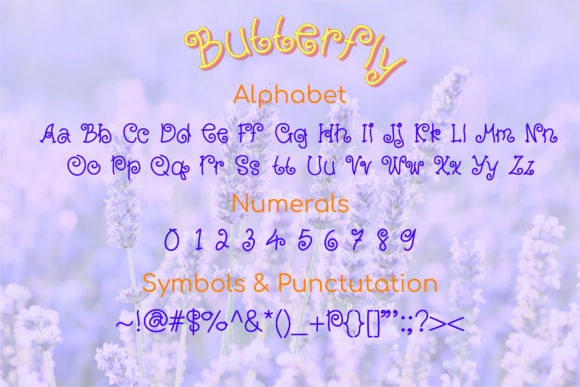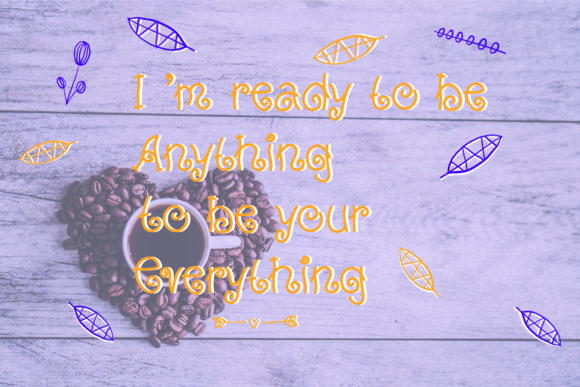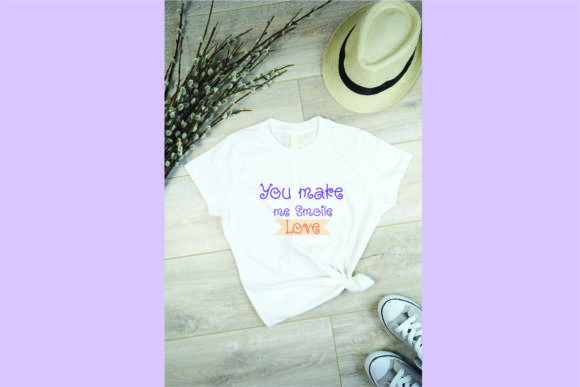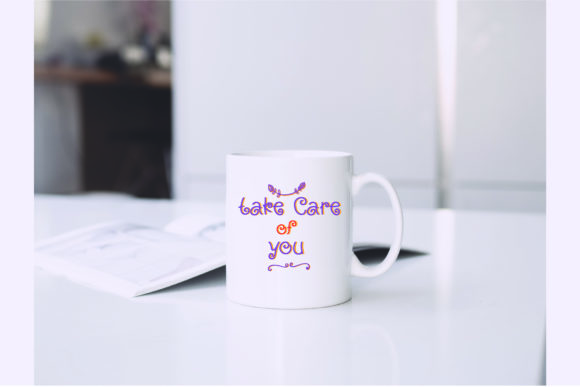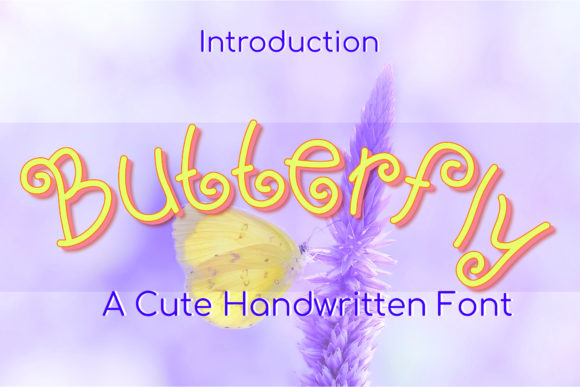
The Magical World of Butterfly Font
With its cute and whimsical script style, Butterfly font instantly elevated my design to a whole new level. If you’re a designer, crafter, or creative hobbyist looking for a font that will make your creations look out of this world, you’re in the right place. In this article, we’ll dive into the world of Butterfly font, exploring its features, uses, and alternatives.
An Honest Review of Butterfly Font
- ✨ Cute and Whimsical Design: Butterfly font is expertly designed to add a touch of magic to your creations.
- ✅ Highly Versatile: This font looks gorgeous on a variety of design ideas, from party invitations to branding materials.
- 💫 Easy to Read: Despite its whimsical nature, Butterfly font is surprisingly easy to read, making it perfect for both headings and body text.
While Butterfly font is amazing, it’s not perfect. Here are a few things to keep in mind:
- 🤔 Limited Use in Small Sizes: Due to its intricate design, Butterfly font may not be the best choice for very small text sizes.
- ⚠️ Occasional Kerning Issues: As with any script font, you may encounter some kerning issues, especially when using it in combination with other fonts.
A Practical Guide to Using Butterfly Font
Butterfly font was designed by a team of creatives who wanted to create a font that would bring a touch of magic to designs. Inspired by the beauty of butterflies and the world of fantasy, they crafted a font that’s both whimsical and elegant. Whether you’re a designer, crafter, or hobbyist, Butterfly font is sure to delight.
Q: What is the best use for Butterfly font?
A: Butterfly font is perfect for designs that need a touch of whimsy and magic, such as party invitations, children’s books, and branding materials.
Q: Is Butterfly font easy to read?
A: Yes, despite its whimsical nature, Butterfly font is surprisingly easy to read, making it perfect for both headings and body text.